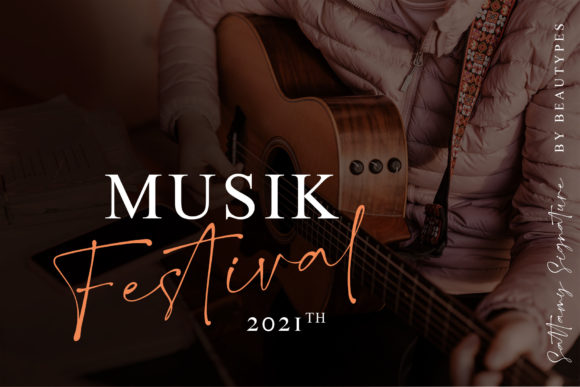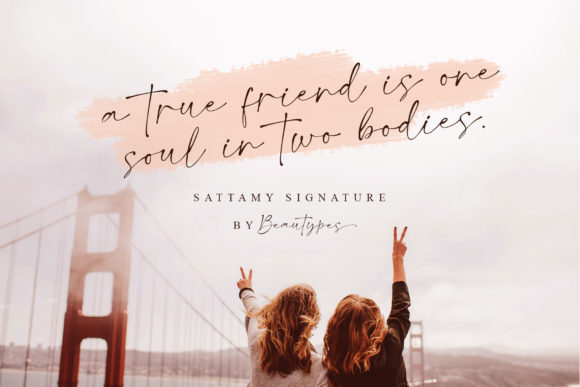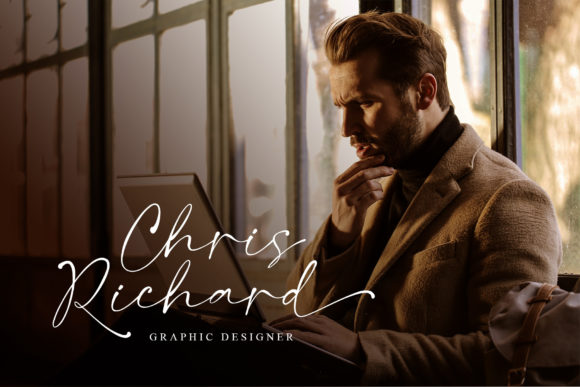
Introduction to Sattamy Signature Font
Sattamy Signature is an organic handwritten font suitable for branding, signature, wedding invitation, promotion, product packaging, and other needs.
This font is PUA encoded, which means you can access all of the glyphs and swashes with ease .
Key Features of Sattamy Signature Font